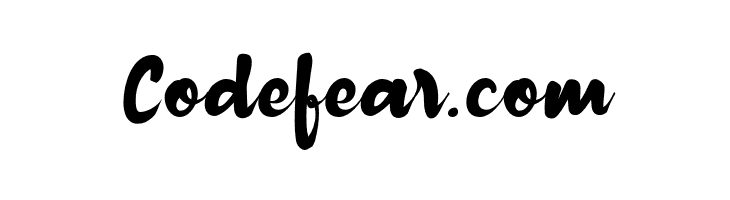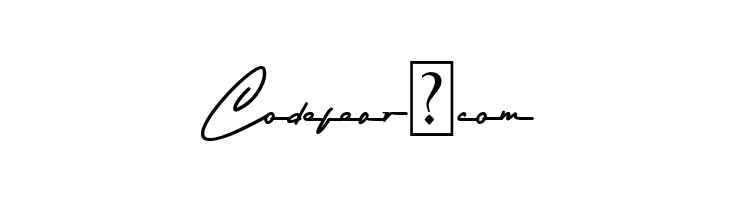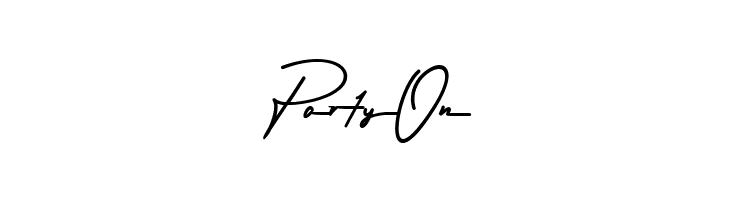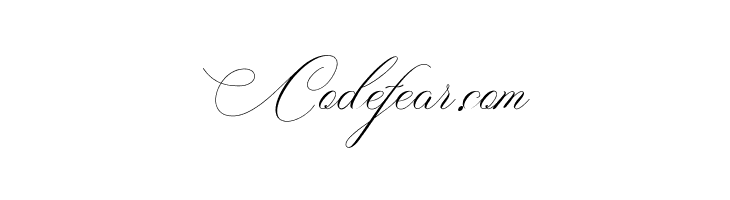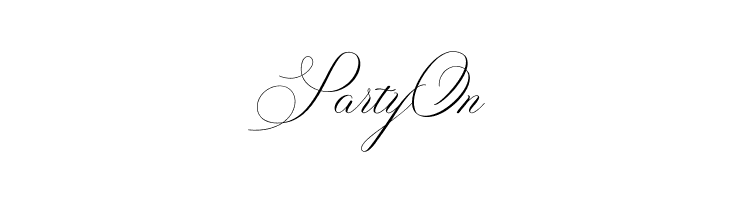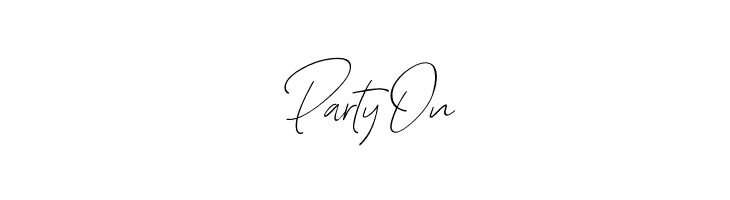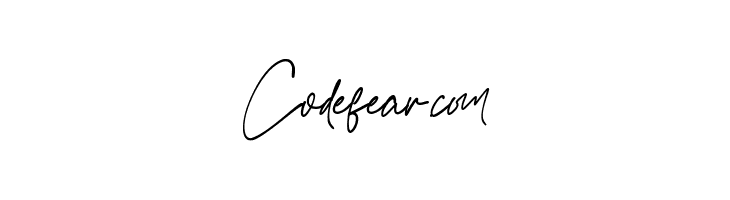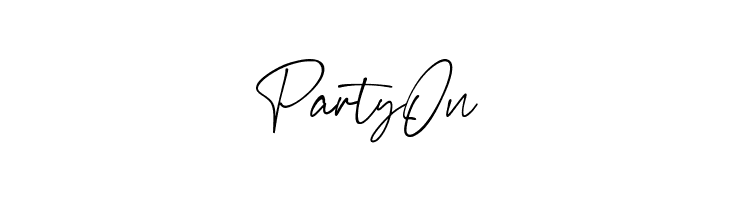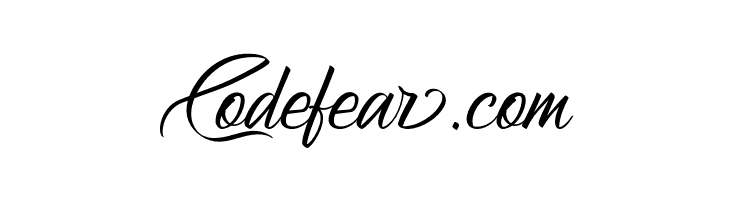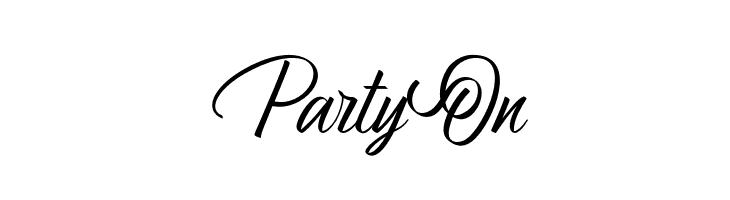
• Attang Script
A casual, handwritten script font with a flowing, natural style.
• Attention Script
A dynamic, flowing script font with a cursive, handwritten style.
• Atusan_Script
A bold, flowing script font with elegant curves and artistic flair.
• Atziluth-Script
A graceful and elegant script font with flowing, cursive letterforms.
• Atziluth-Script
An elegant, flowing script font with intricate loops and swashes.
• August Script Bold free
A bold, elegant script font with flowing, interconnected characters.
• AugustStoriesDEMO-Script
A graceful, handwritten script font with flowing, elegant strokes.
• Aunofa Script DEMO Regular
A graceful and fluid handwritten script font with elegant, flowing letters.
• AureligenaScript
An elegant script font with flowing, interconnected letters and decorative swashes.
• Aurella-Script
A graceful script font with flowing cursive letters and decorative swashes.